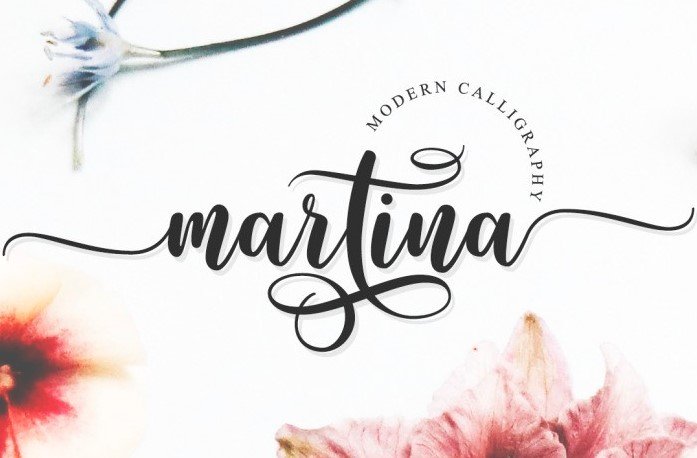
Hey everyone, meet Martina Calligraphy Font, a distinctive calligraphic typeface featuring the most classical and unique styles. It boasts fantastic handwriting textures and manuscripts, perfect for creating charming and whimsical designs effortlessly.
The font comes with lots of ligatures and eye-catchy designing layouts that you can also see in the picture below to get an idea about its uniqueness and attractivity.